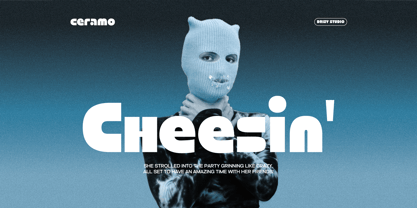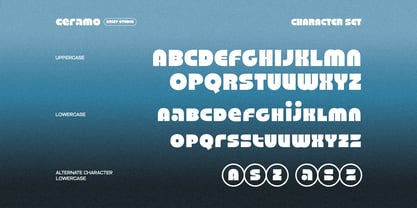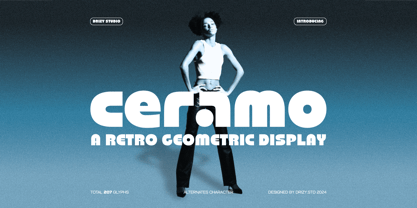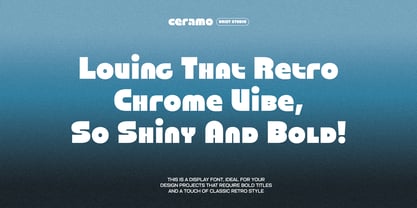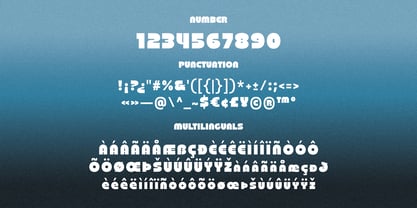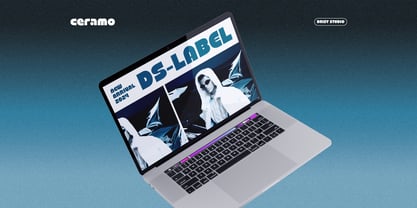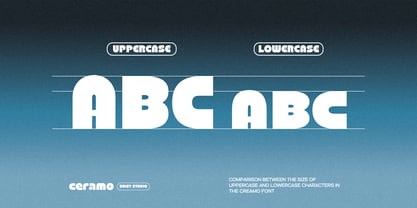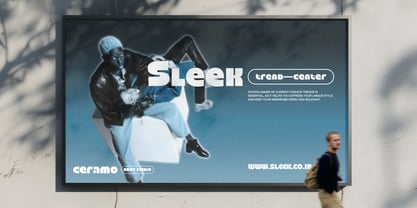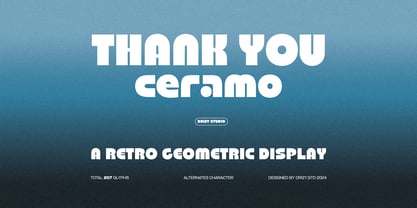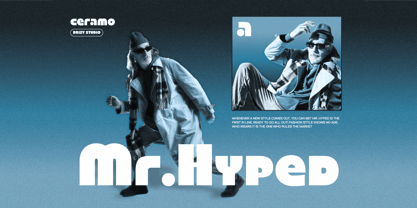
Ceramo
by Drizy Font
The Ceramo Font Family was designed by Panca Ahmadi Hasan and published by Drizy Font. Ceramo contains 1 styles. More about this family
Ceramo – Retro Geometric Display Font
Ceramo is a bold and striking font designed to capture the spirit of retro style with a modern geometric twist. Perfect for Winter Streetwear brands, this font blends nostalgic charm with edgy. It’s sharp lines and geometric forms evoke a sense of dynamic movement, making it a great choice for fashion forward brands looking to elevate their seasonal collections. Ceramo adds a unique, vintage-inspired flair while staying versatile and fresh for the winter vibe.
Ceramo features:
• Character Set (Uppercase & Lowercase)
• Punctuation & Numbers
• Multilingual
• Alternates “a, s, z”
Designers: Panca Ahmadi Hasan
Foundry: Drizy Font